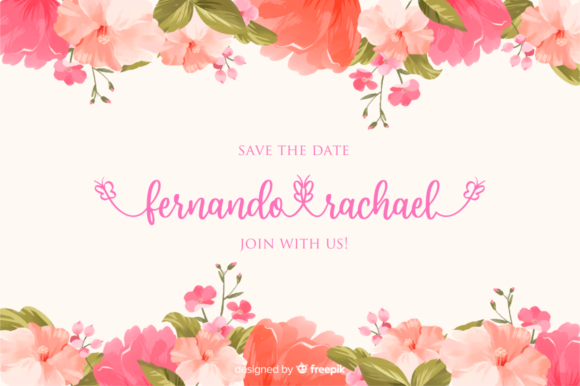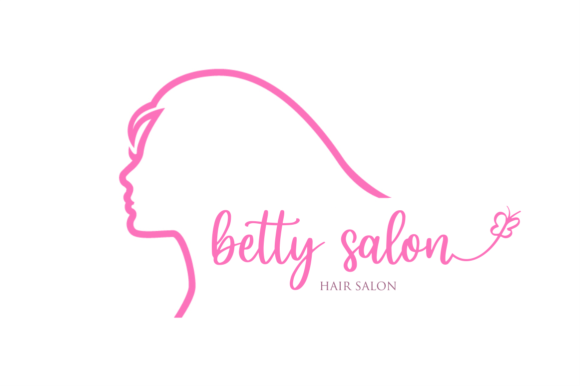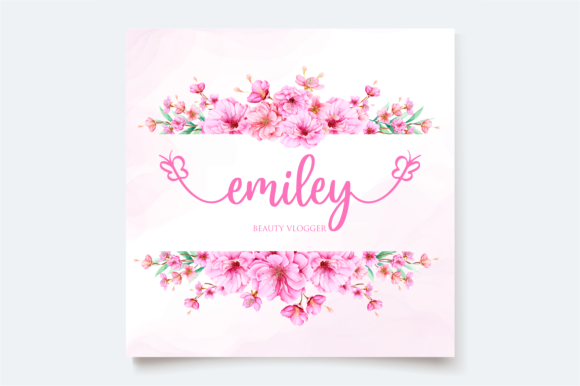
Hey Butterfly Font
About the Hey Butterfly Font
Get ready to be inspired by Hey Butterfly Font, a fresh and dynamic typeface for modern creators. Hey Butterfly is a gorgeous handwritten font. It features cute butterfly-themed characters that will take your projects to the next level!
This font is PUA encoded which means you can access all of the cute glyphs and swashes with ease! It also features a wealth of special features including alternate glyphs and ligatures.
Hey Butterfly’s playful, slightly whimsical personality makes it ideal for projects requiring a touch of charm and personality. It excels in headlines, short text blocks on packaging, invitations, and social media graphics. Consider it for branding projects targeting a younger demographic or those emphasizing fun and creativity. Avoid using it for large bodies of text or UI elements where readability is paramount; the handwritten style can hinder legibility in extended use.
Pairing Hey Butterfly with a clean sans-serif like Open Sans for body text creates a balanced design. For a more sophisticated look, consider a classic serif like Garamond or a geometric sans-serif like Montserrat. These pairings provide a strong contrast, allowing Hey Butterfly’s playful elements to shine without overwhelming the overall design.
The extensive glyph set, including swashes and alternates, offers flexibility for creating unique and visually interesting designs. Remember to utilize these features strategically to maintain visual harmony and avoid excessive ornamentation.
Hey Butterfly Font Usage Examples
Hey Butterfly Font Example